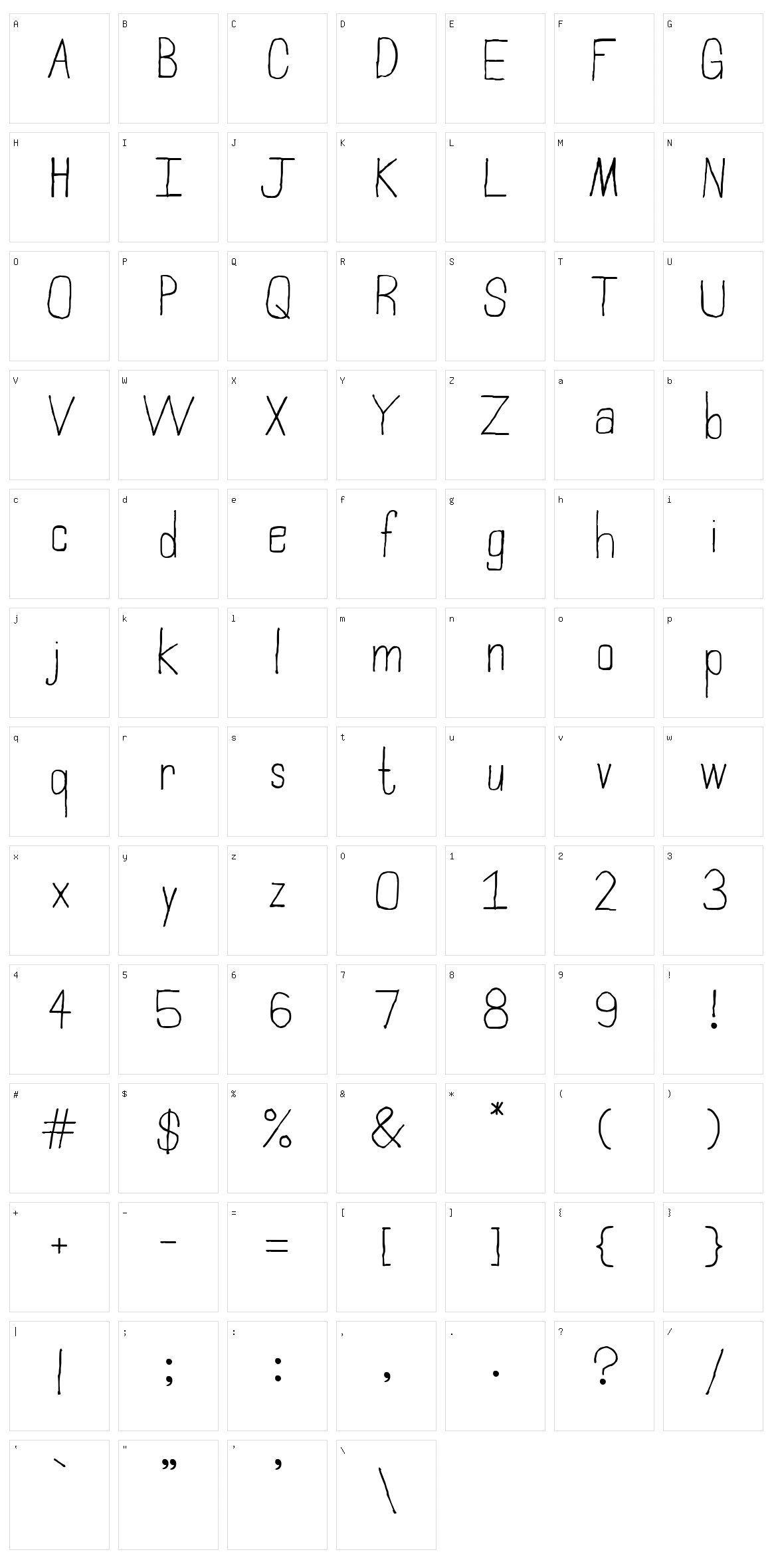
Northampton Font
Northampton is a handwriting font that I designed with a marker and paper. I created this font with Adobe Illustrator and FontLab Studio 5.